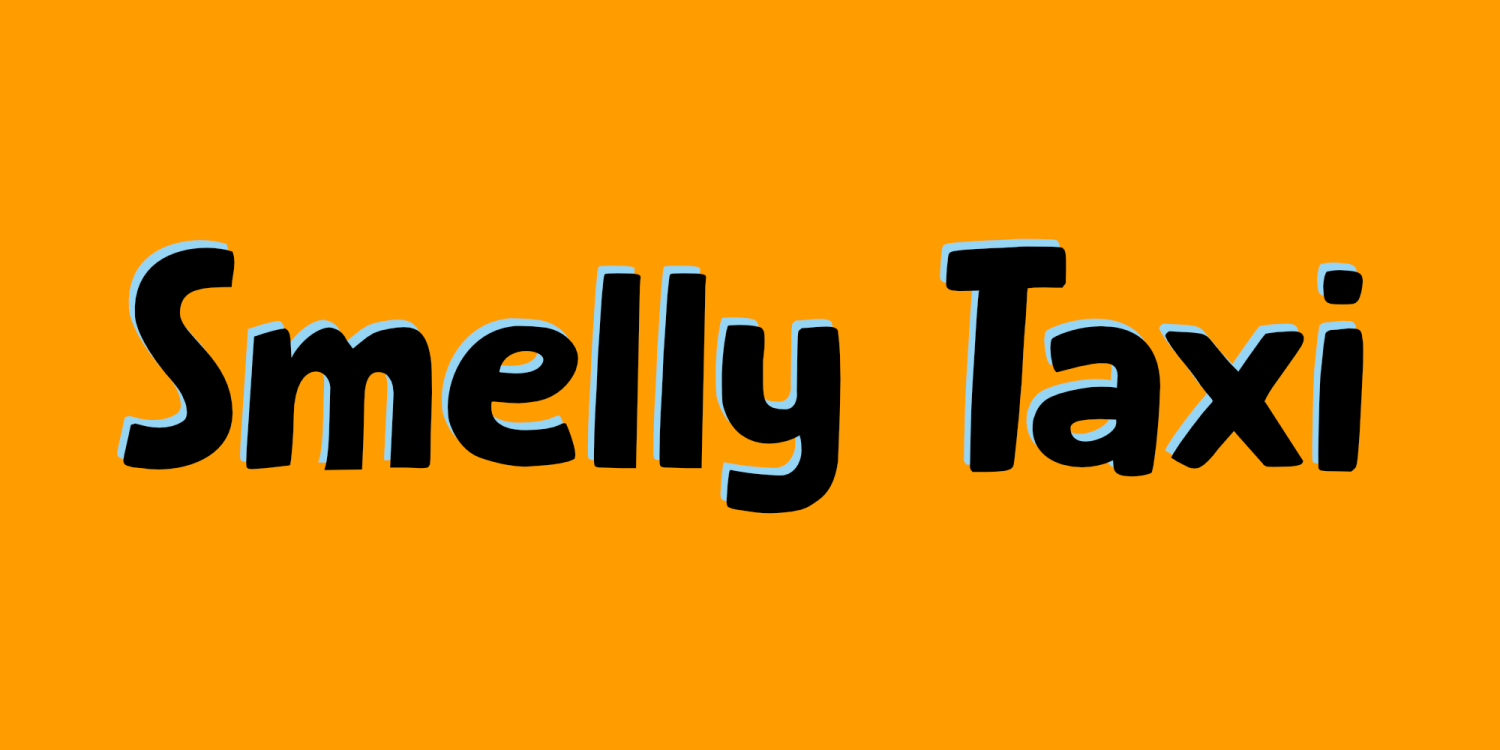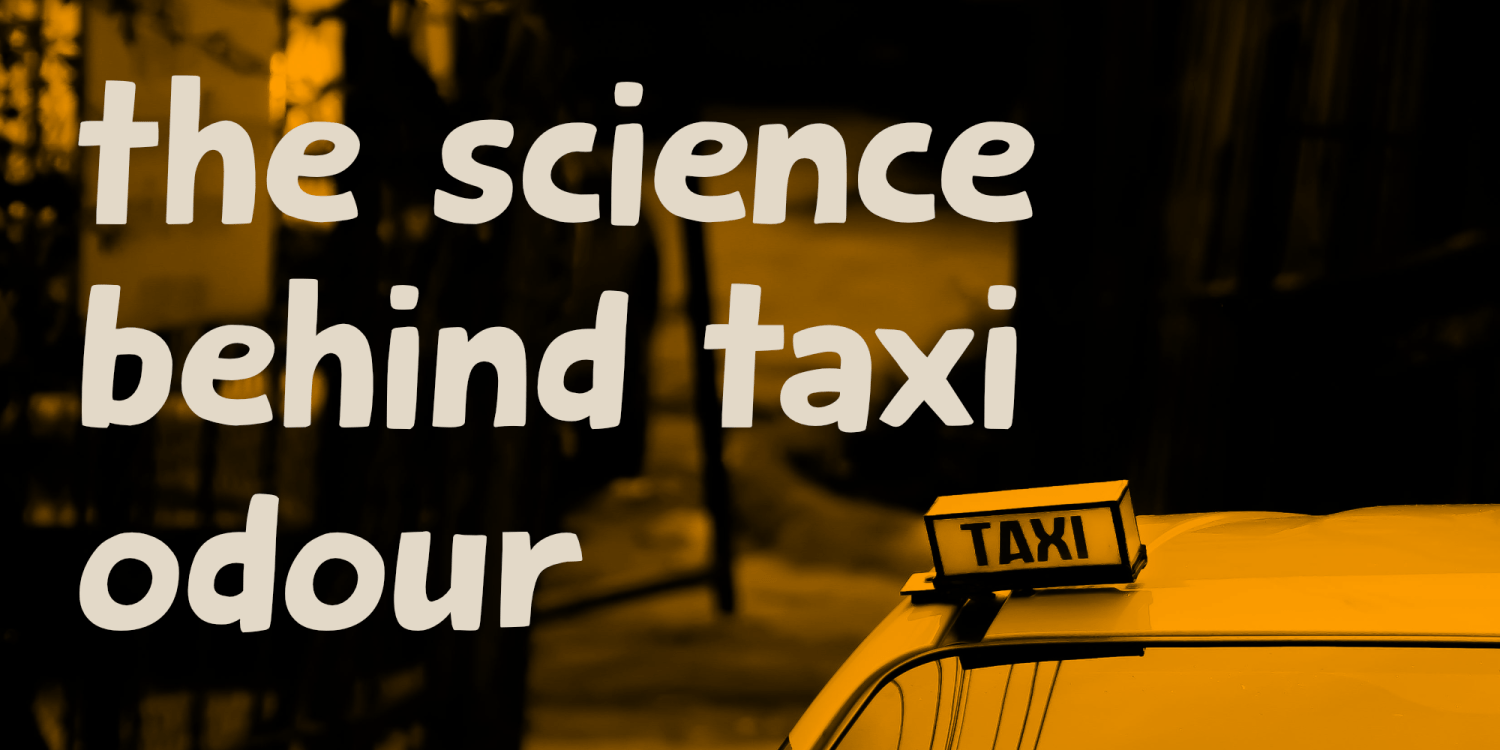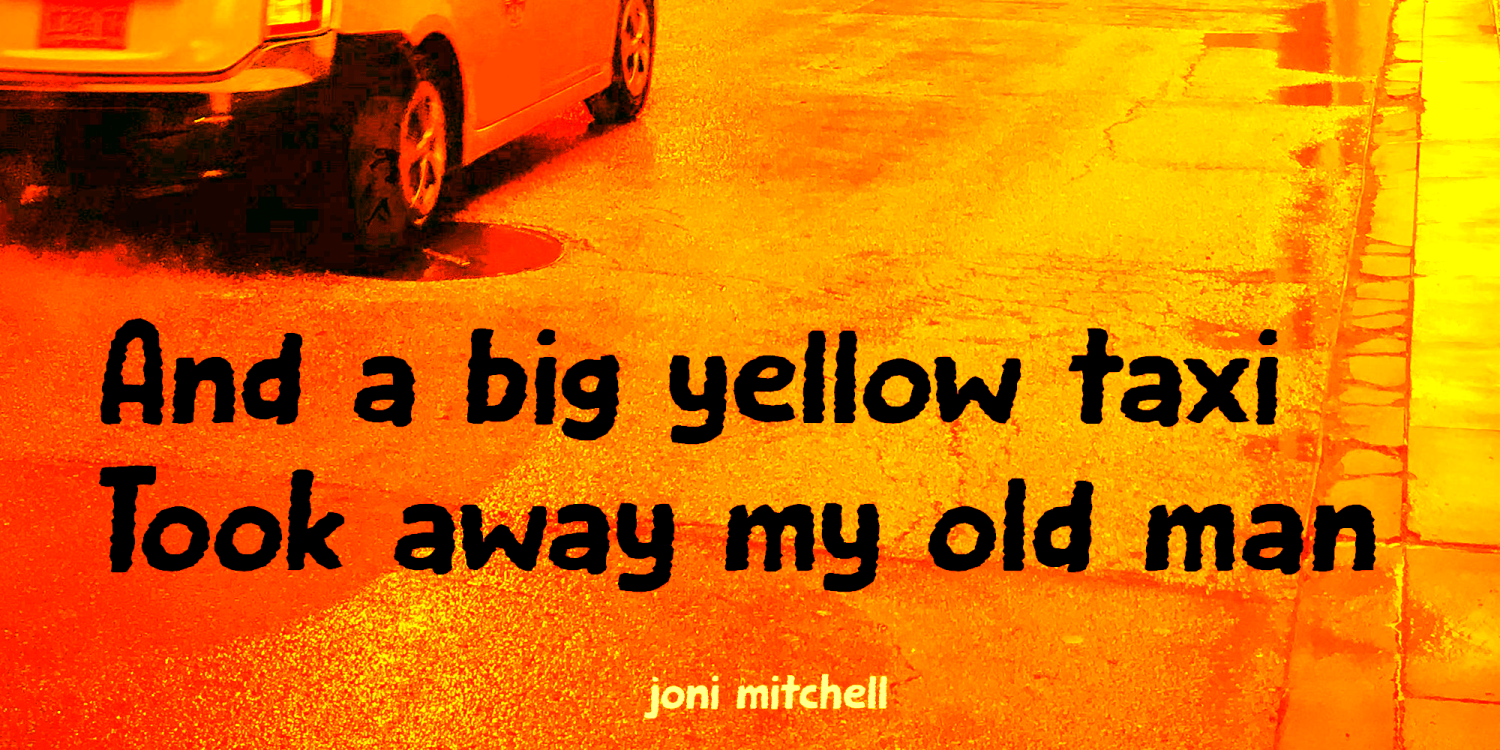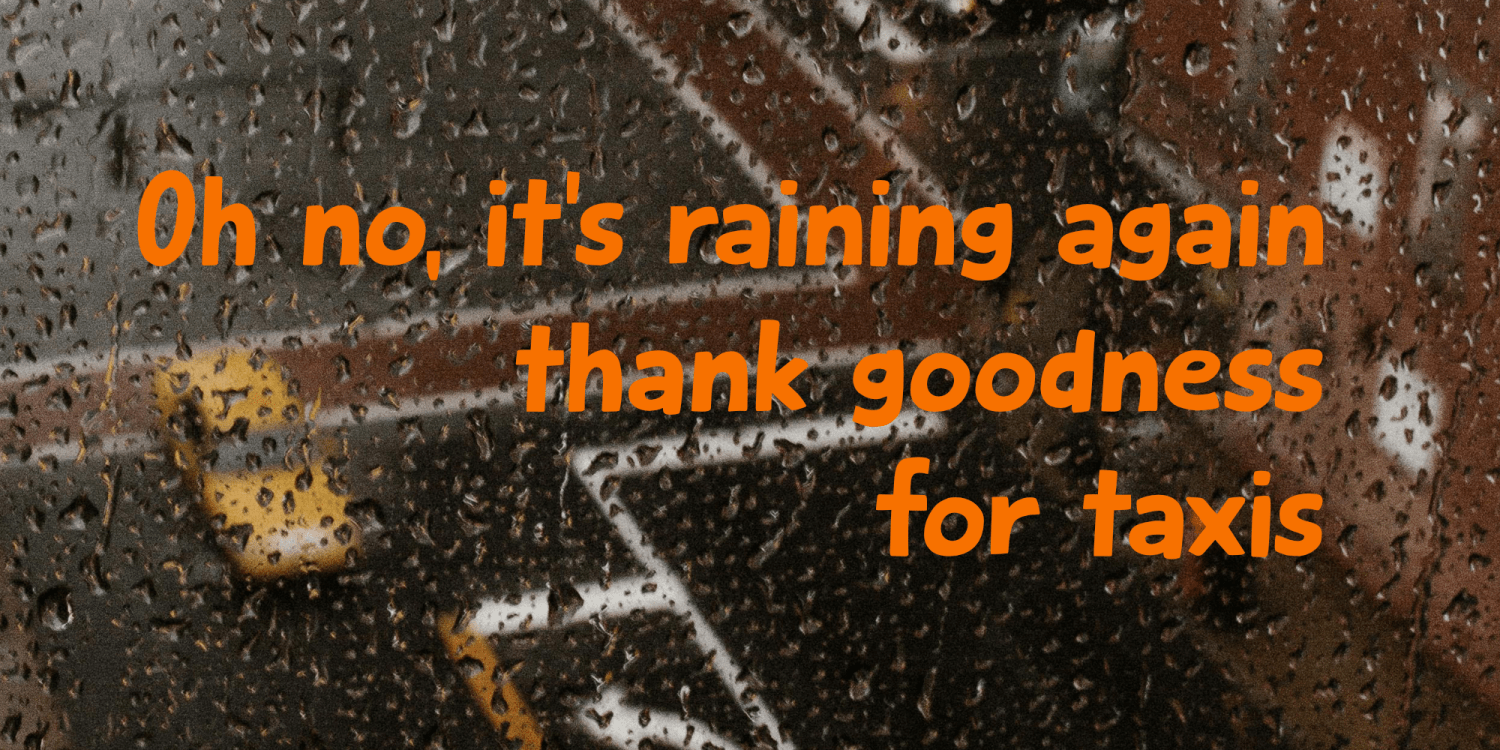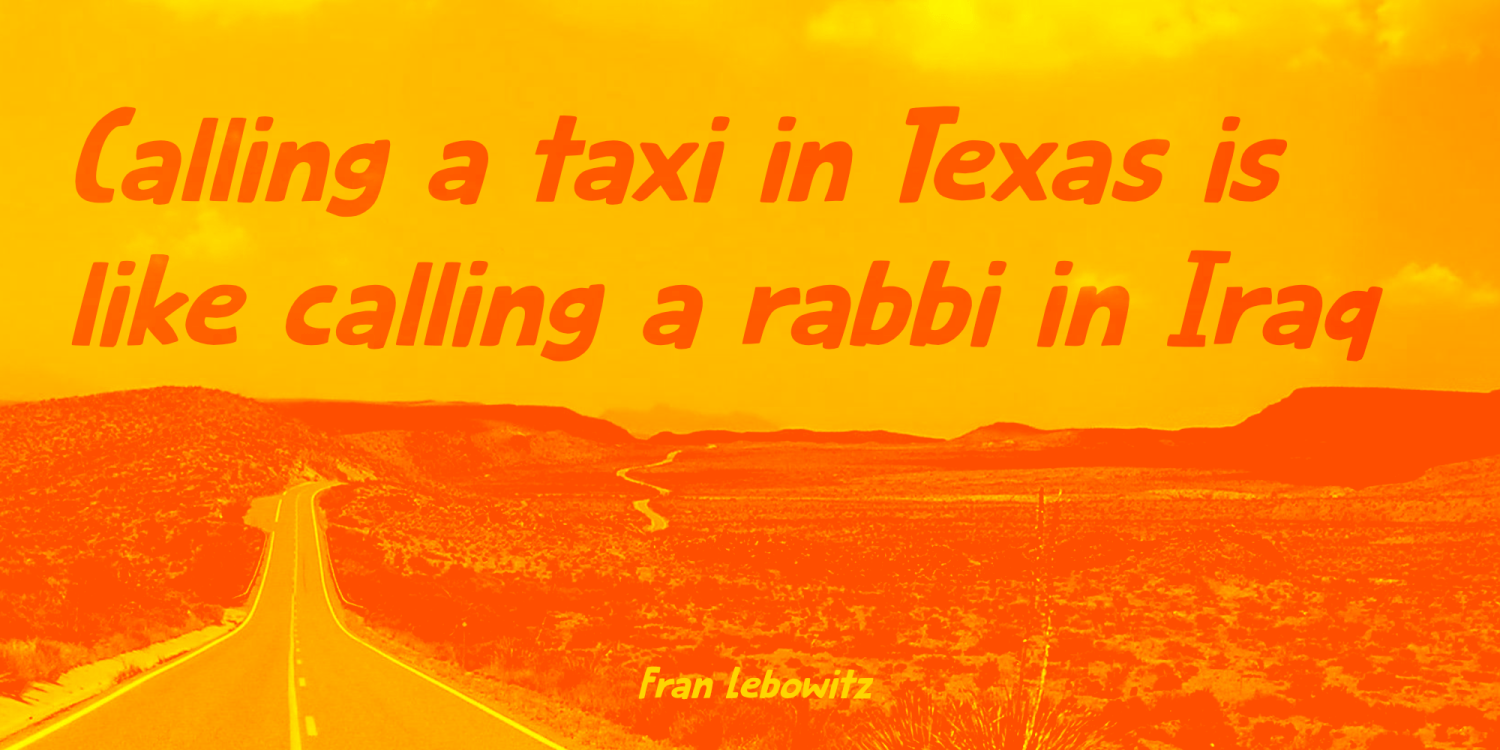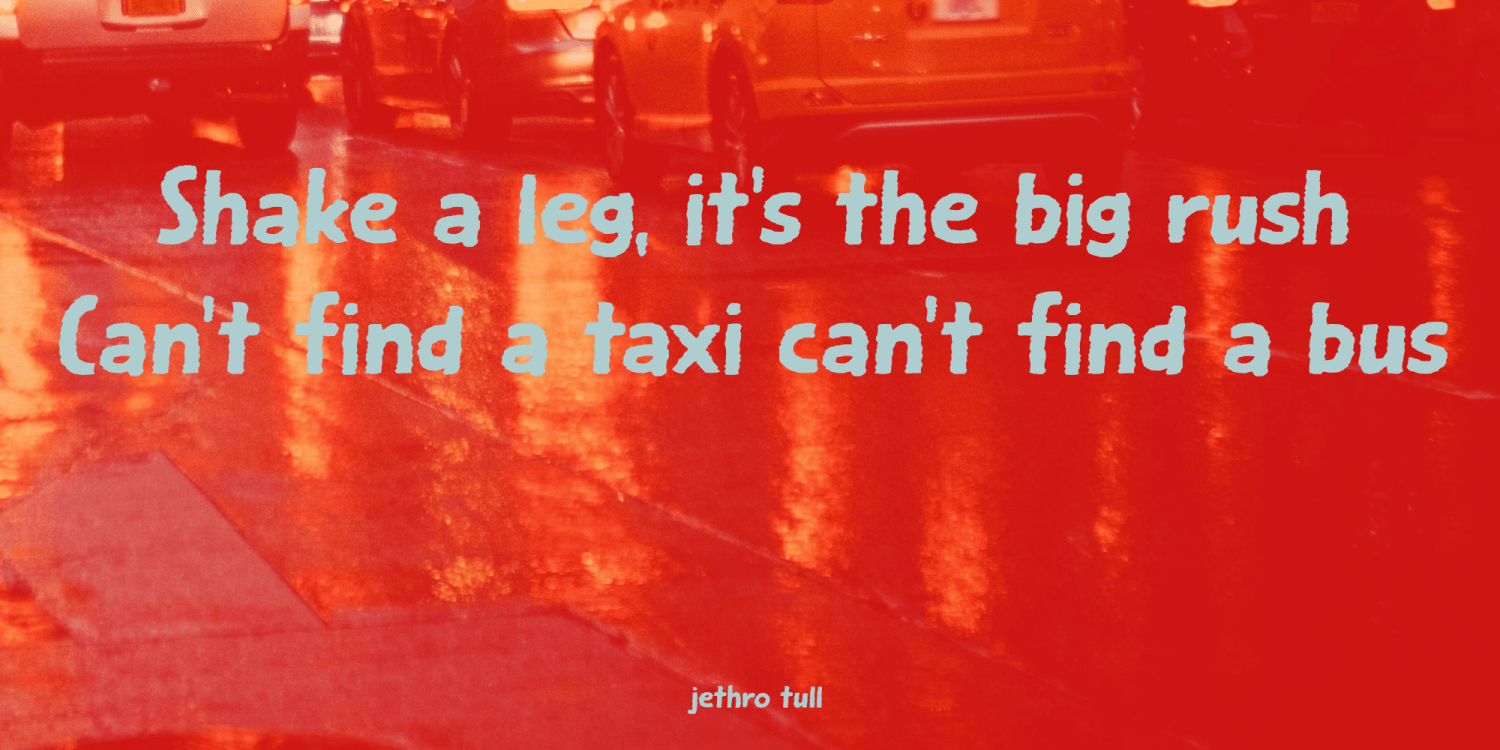
Smelly Taxi
I don’t often use taxis, as I live in a very small village and have a bicycle and a car. When I guide tours abroad, however, I sometimes use taxis and it always surprises me that they seem to have their own distinct ‘taxi smell’. It’s like a mixture of stale beer, cigarette smoke, oil and vinyl.
Smelly Taxi is a handmade font. It comes in a smooth and a rough style.